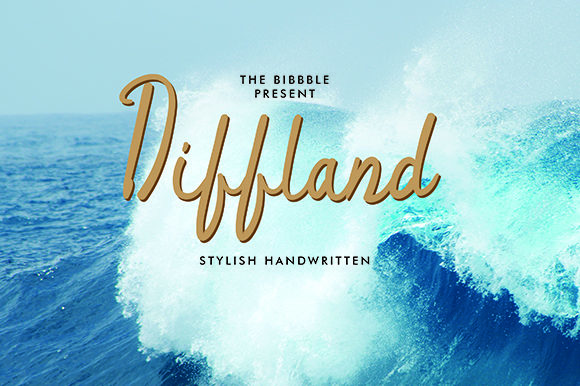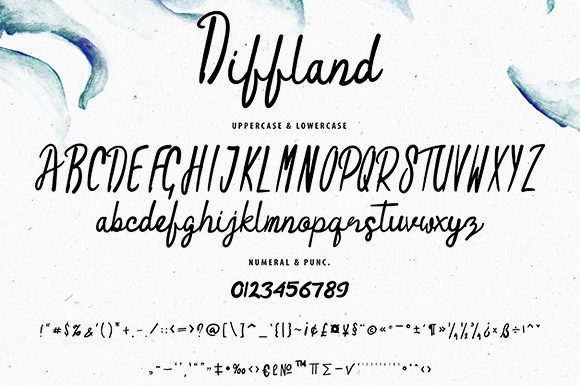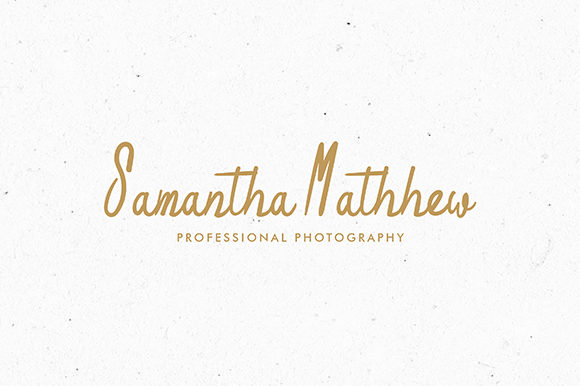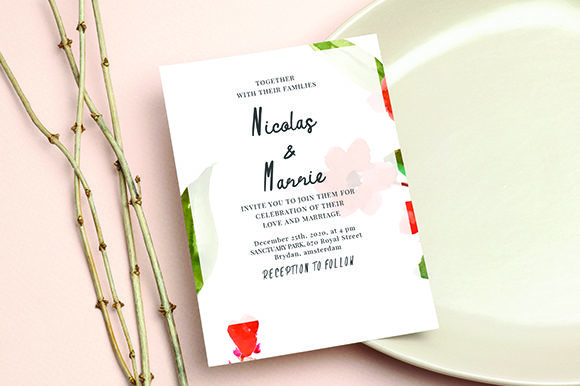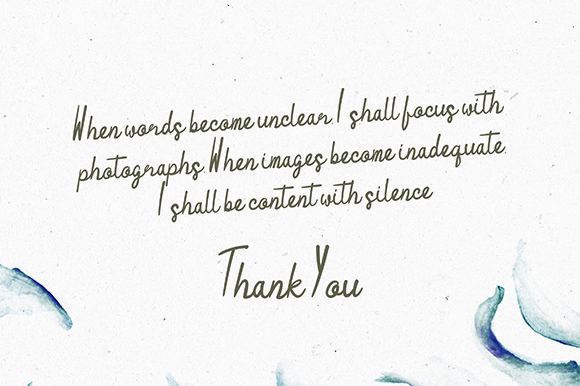
Diffland Font
About Diffland Font
Diffland is a handwritten signature style script that gives it quick and speedy pacing. Its handwritten look can really freshen up your projects. Diffland is perfect for branding projects, logo, wedding designs, social media posts, advertisements, product packaging, product designs, label, photography, watermark, invitation, stationery and much more!